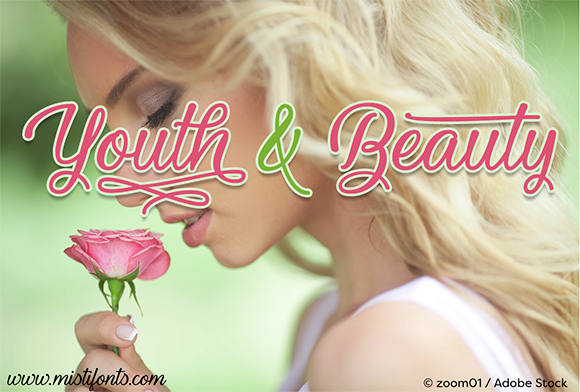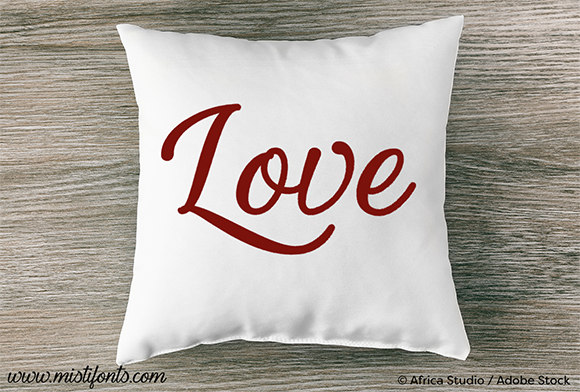
Youth and Beauty Font
db-ku.com - Script & Handwritten -- Youth and Beauty is an elegant calligraphy font that is perfect for your design and craft projects!